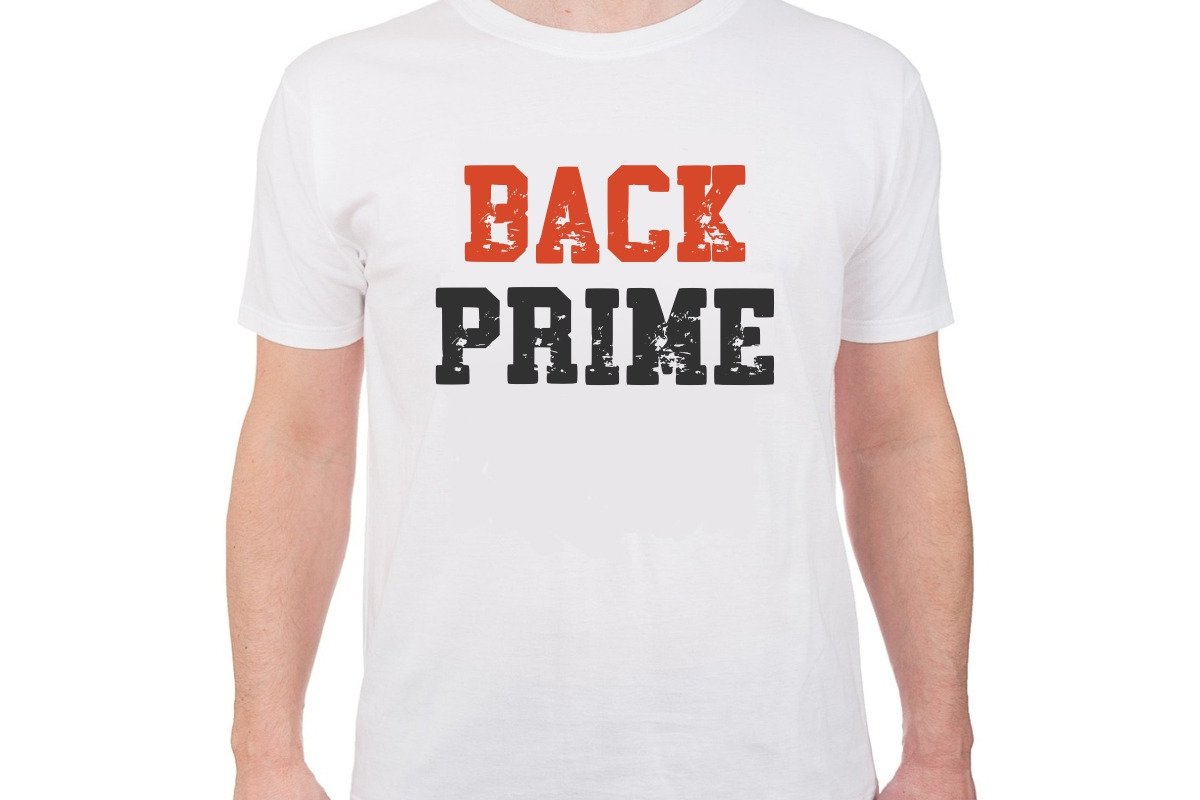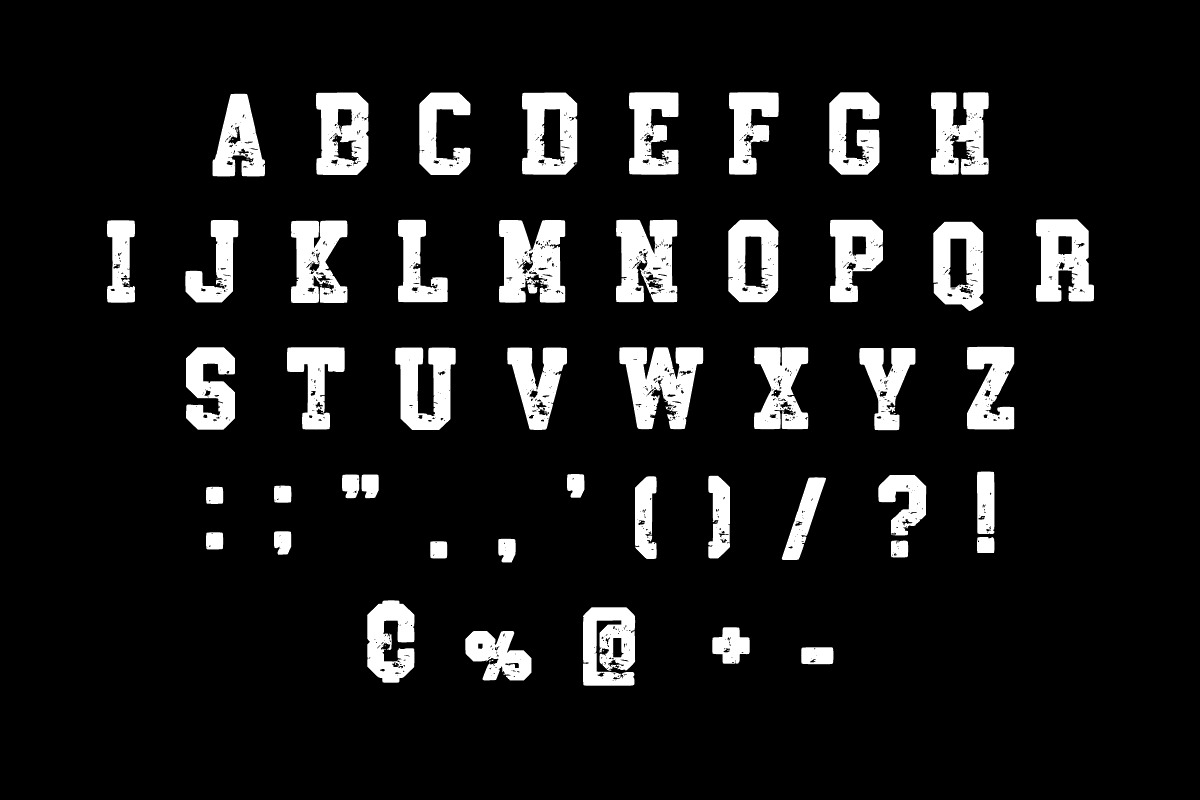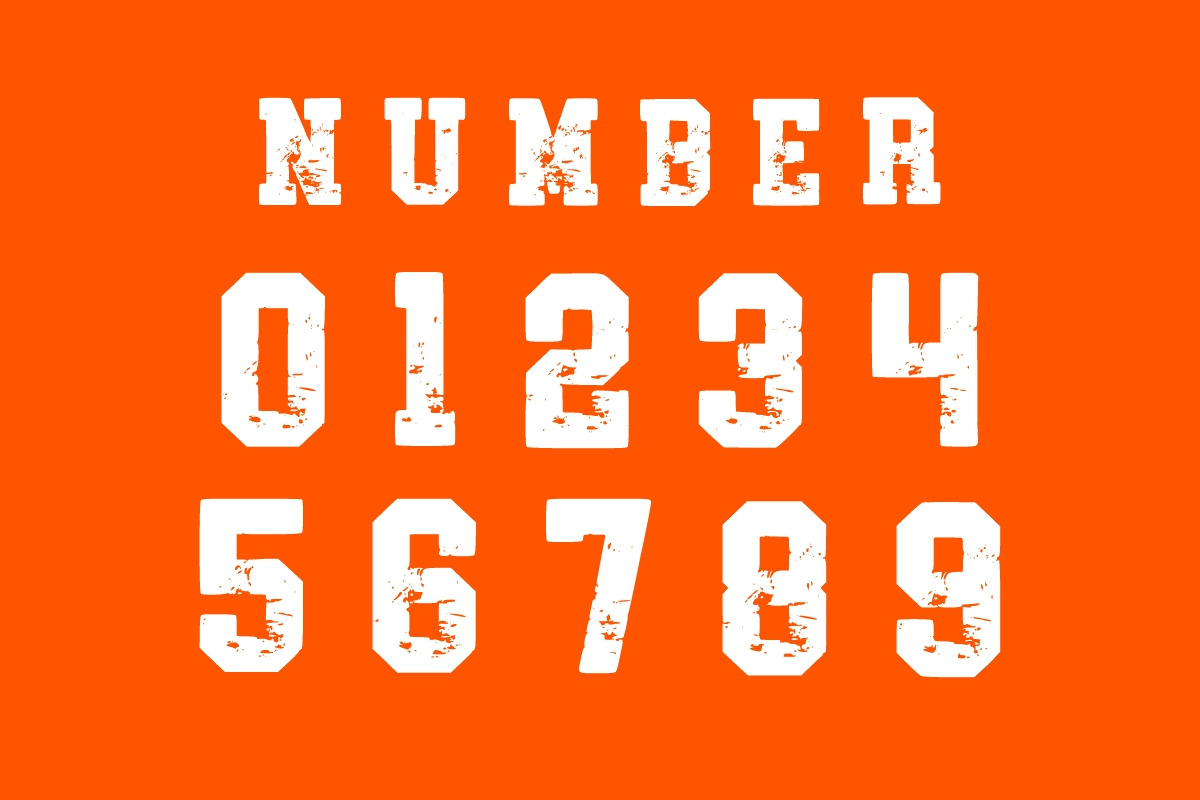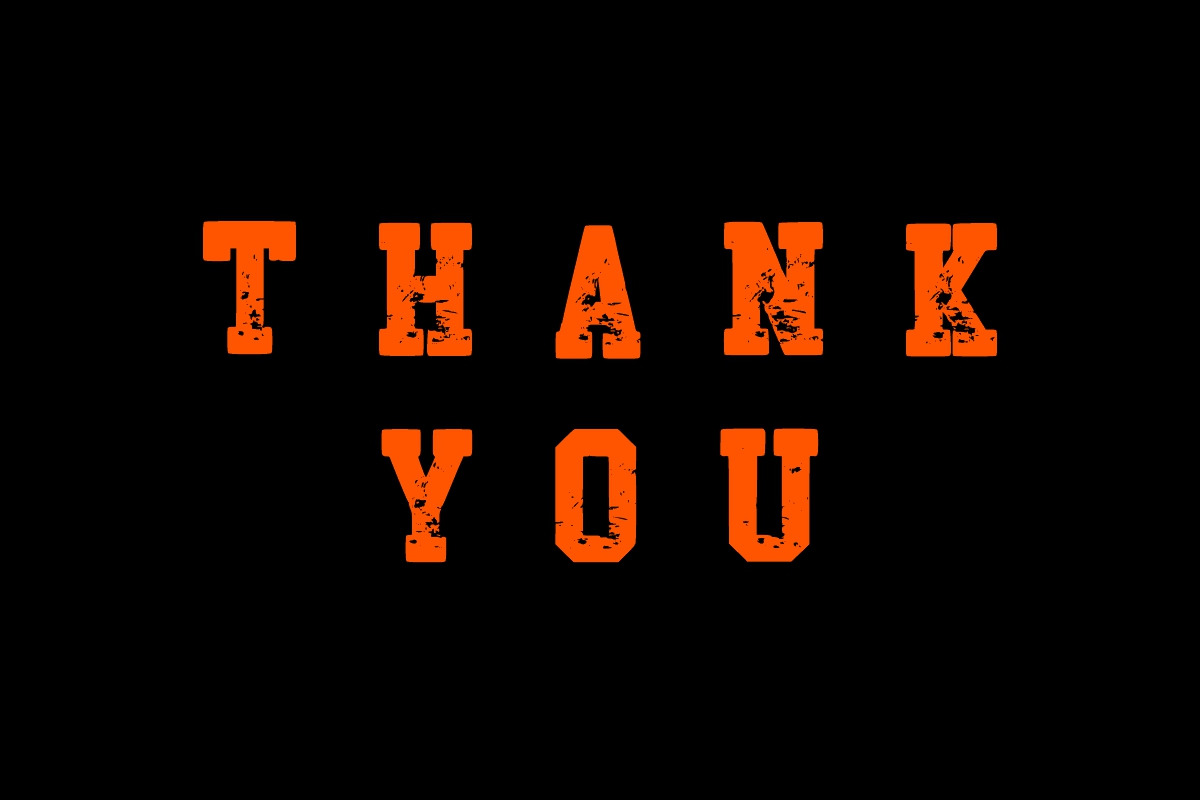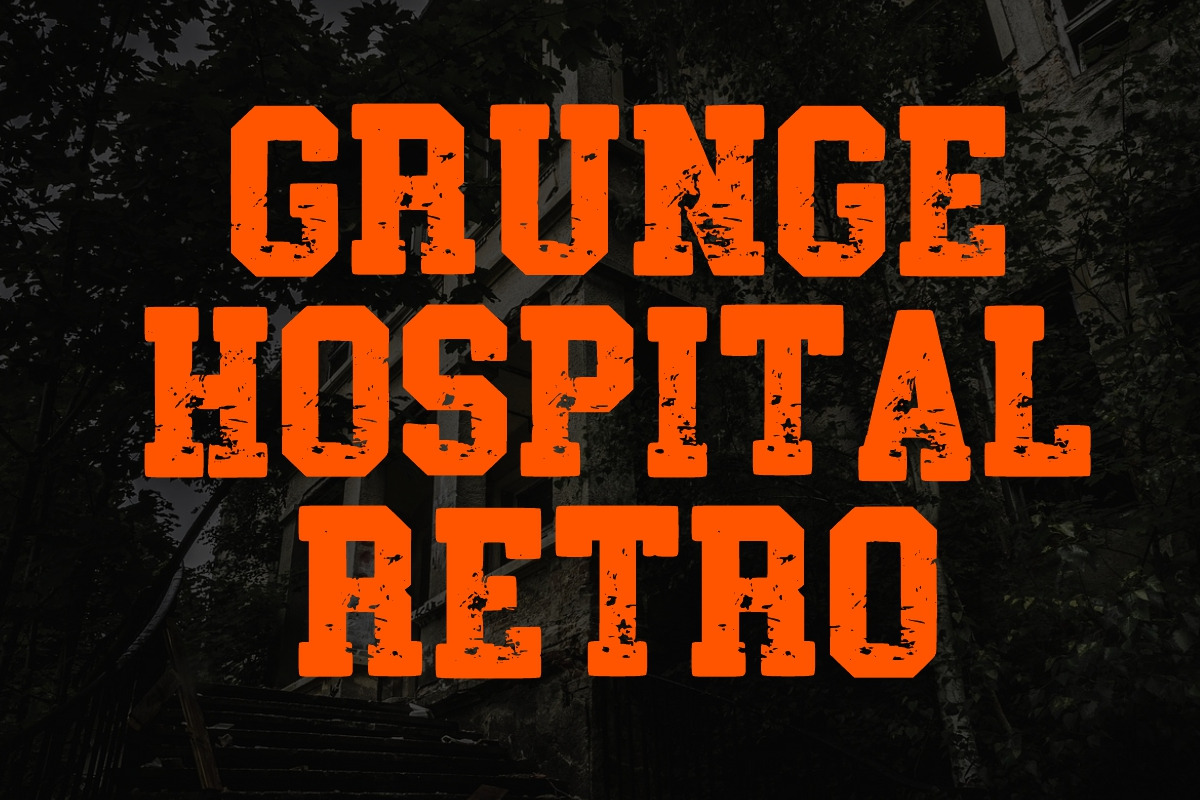
Varsity Chalk
VARSITY CHALK is a Vintage, chalk style, cool, grunge bold display font perfect for various projects such as blog posts, logos, branding, ads, invitations, greeting cards, planners, photo albums, decorations, and much more.